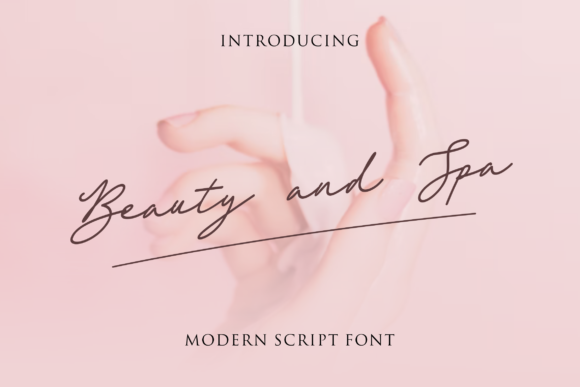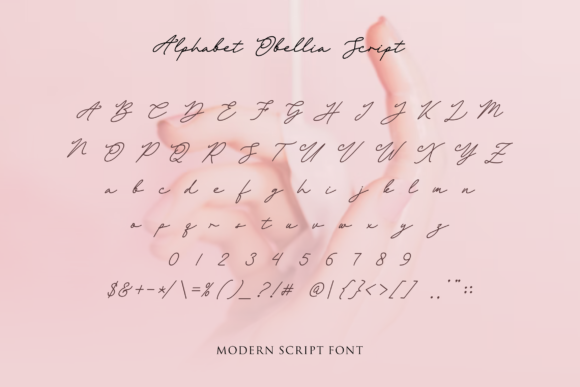
Obellia Script Font
Obellia Script Font: Elegant Typography for Creative Designs
Obellia Script is a stylish script font that exudes delicacy and elegance. Its unique letterforms make it perfect for various branding projects, adding sophistication to designs.
Versatility in Branding Applications
In logos, Obellia Script elevates brand identity. Its fashionable appearance conveys professionalism and originality, ideal for high-end boutiques or creative agencies.
T-shirt printing benefits from Obellia Script’s charm. Its curves create eye-catching designs that make a statement on clothing and apparel.
Enhancing Creative Products
Obellia Script brings life to packaging designs, labels, and product tags. Its aesthetic enhances product presentation, making items visually appealing to consumers.
The font shines in editorial designs like magazine layouts and book covers. It adds sophistication to lifestyle, fashion, and artistic publications.
Obellia Script in Special Occasions
Invitations and event materials benefit from Obellia Script’s refined look. It adds elegance to wedding invitations, RSVP cards, and other stationery items.
Digital Applications
In digital contexts, Obellia Script creates eye-catching elements. It’s versatile for social media graphics and website headers, enhancing online branding.
Conclusion: A Font for Sophisticated Expression
Obellia Script is a delicate and fashionable font that brings elegance to various projects. From branding to t-shirt printing and creative products, it adds a distinctive flair to designs. Its versatility makes it shine in multiple contexts, elevating the visual appeal of your work.